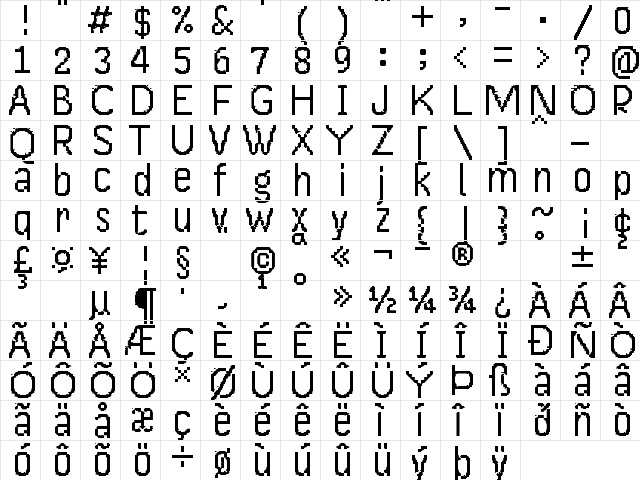
UF Mana-13alt Regular
| Foundry | Ultrafonts |
| Designer | Hrant Papazian |
Design Context for UF Mana-13alt Typeface
UF Mana-13alt offers clean, dependable letterforms without strong stylistic allegiance, making it a practical choice for designers who need flexibility.